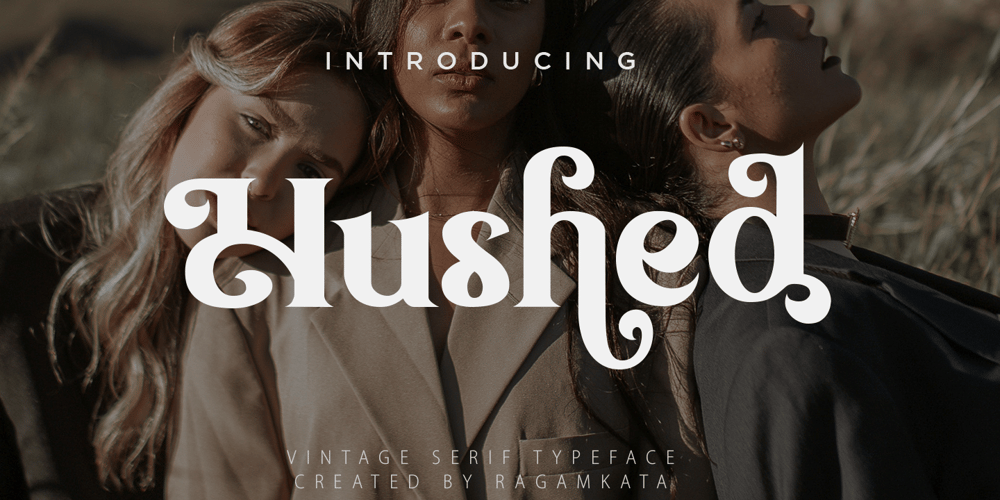
Hushed Font Family was designed by Yogiswhara Dio Prakoso Riadi and published by RagamKata. Hushed contains 1 styles and family package options. Love Beach is Vintage Serif Font with a touch of modernity. It looks amazing at display sizes and is easily readable in text size. Olive Village comes with access to your OpenType features, large selection of alternate glyphs.Love Beach is a display font made mainly for headlines, titles, and other short texts and is well-suited for advertising, vintage mood board, branding, logotypes, packaging, titles, editorial design and modern and vintage design.